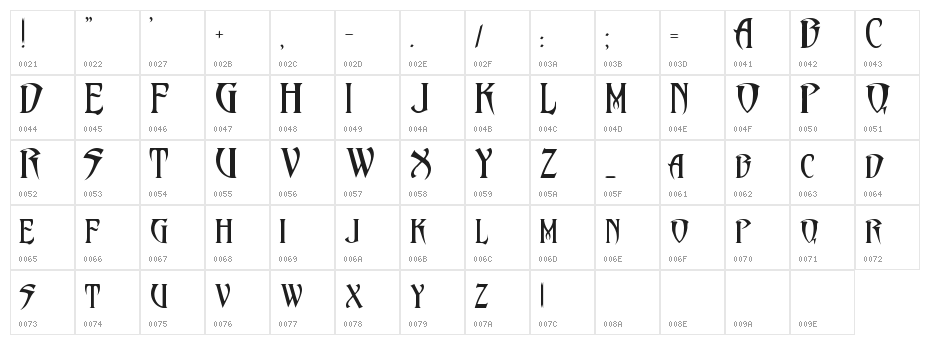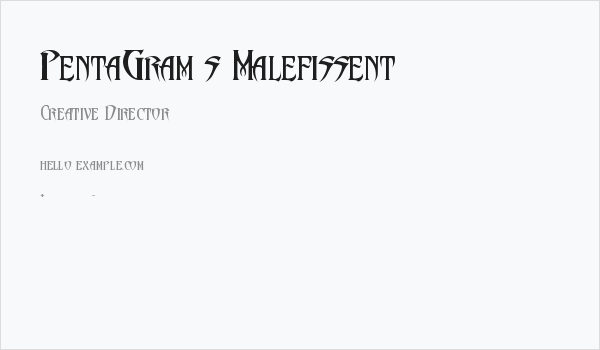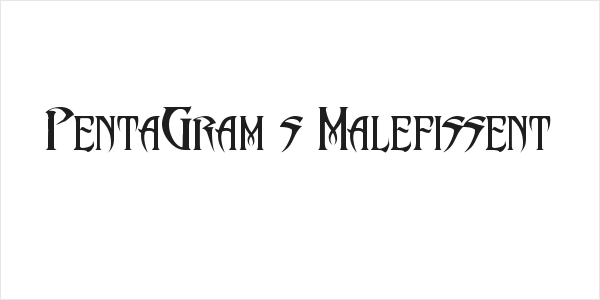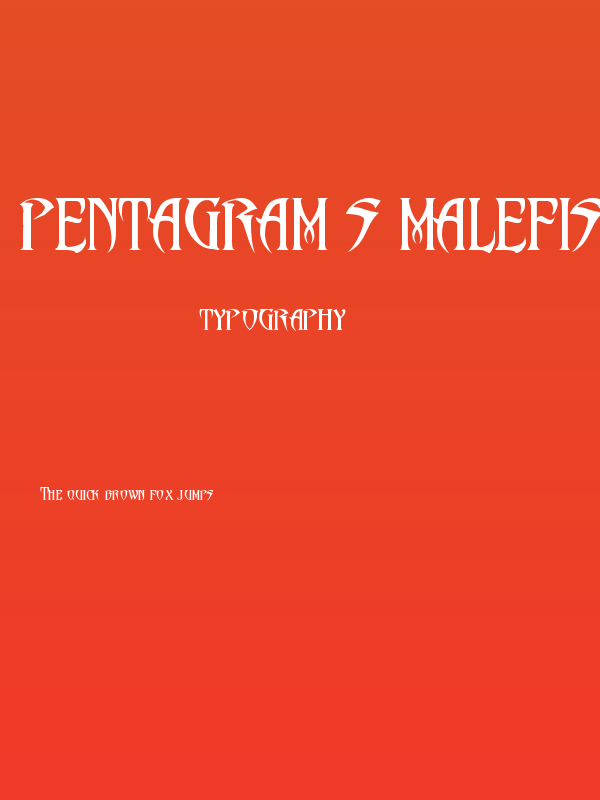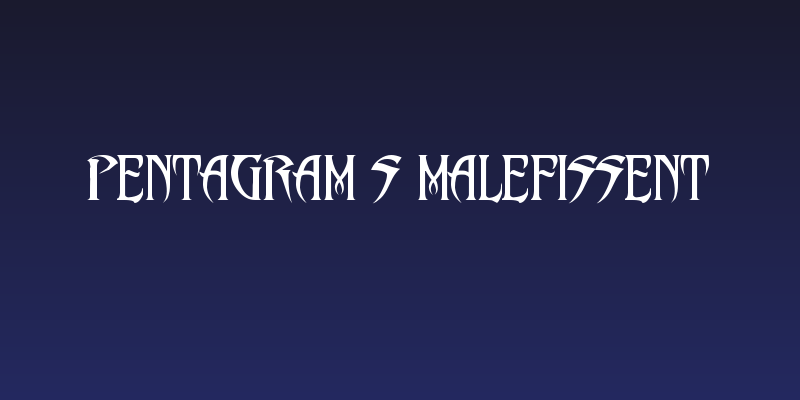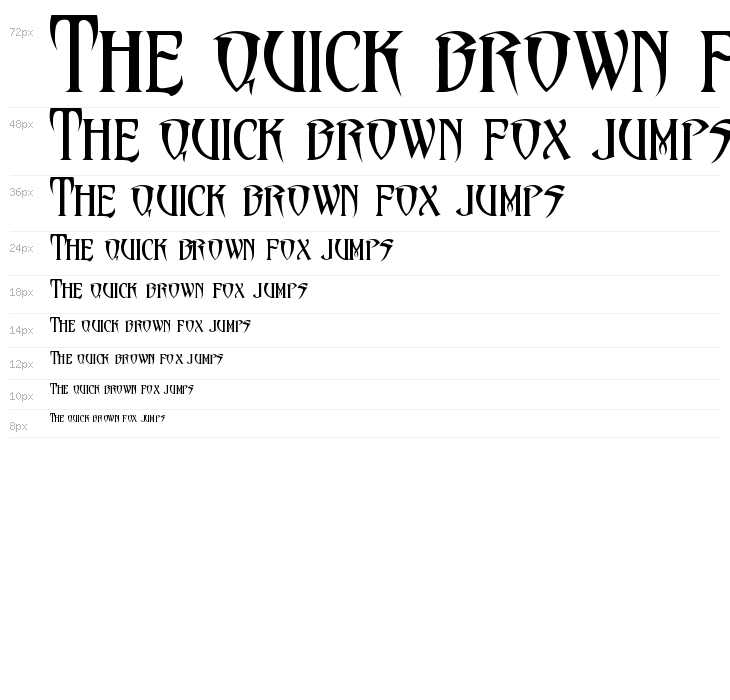
PentaGram s Malefissent Font
PentaGram s Malefissent Description
This font exudes a gothic and medieval aesthetic, characterized by its sharp, angular strokes and dramatic flair. The uppercase letters are bold and commanding, with intricate details that suggest a sense of mystery and elegance. The lowercase letters maintain the same stylistic elements, ensuring consistency throughout the typeface. The numerals and special characters are equally ornate, fitting seamlessly into the overall design. This font is ideal for projects that require a touch of fantasy or historical ambiance, such as book covers, posters, or themed event invitations.
| Overall Style | Gothic, Medieval |
| Use Case | Headlines, Logos, Decorative text |
| Proposed Projects | Book covers, fantasy-themed posters, historical event invitations, or branding for gothic-themed products. |